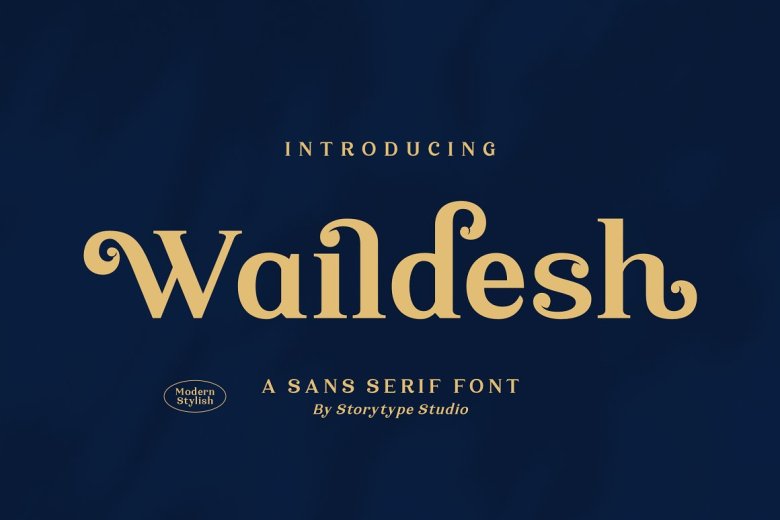
Waildesh Font
Waildesh – is a modern and classic serif font with its own unique style & modern look. this typeface is perfect for an elegant & luxury logo, book or movie title design, fashion brand, magazine, clothes, lettering, quotes, and so much more.
Waildesh Serif Font